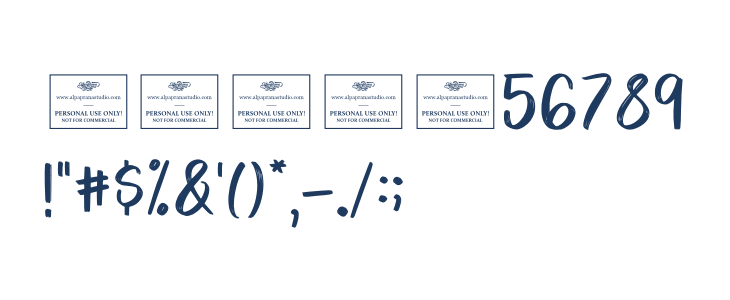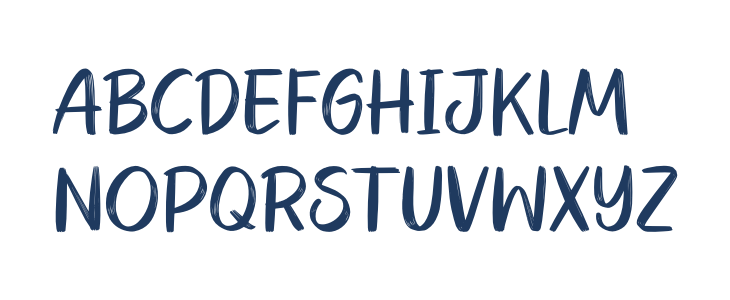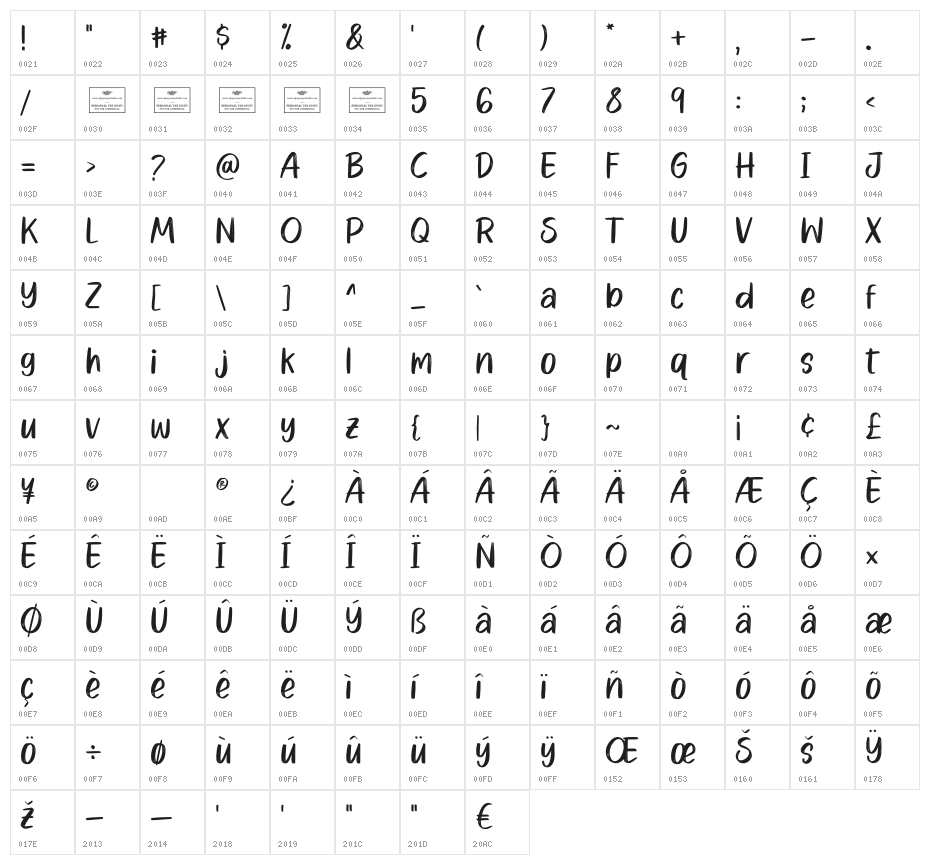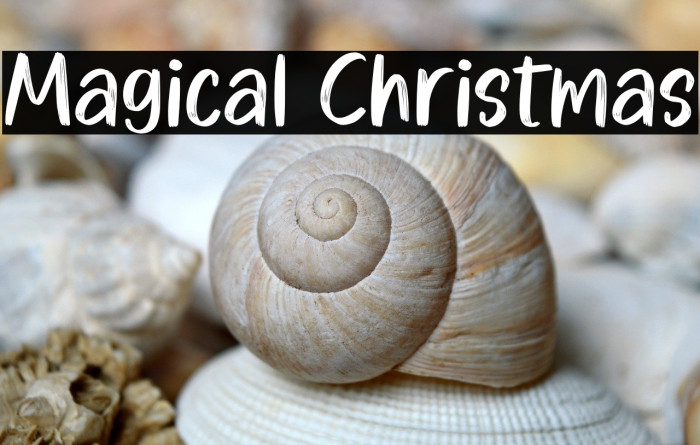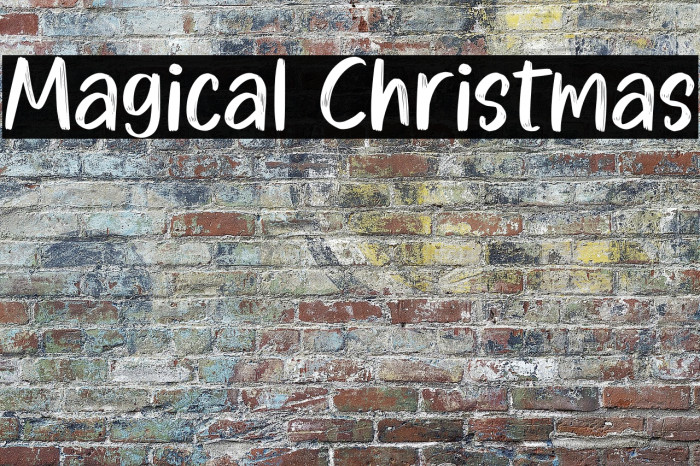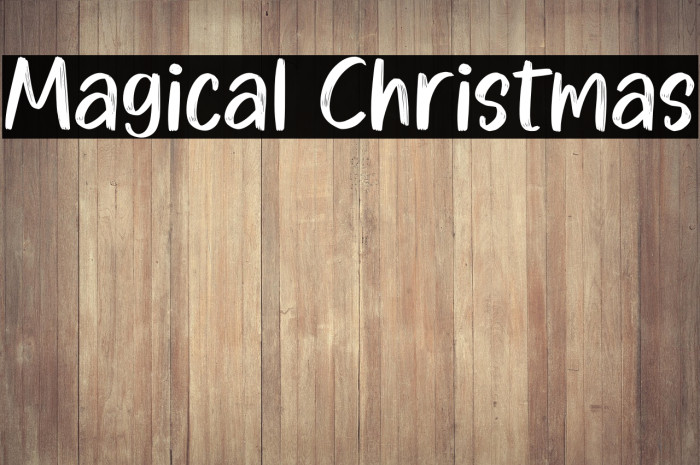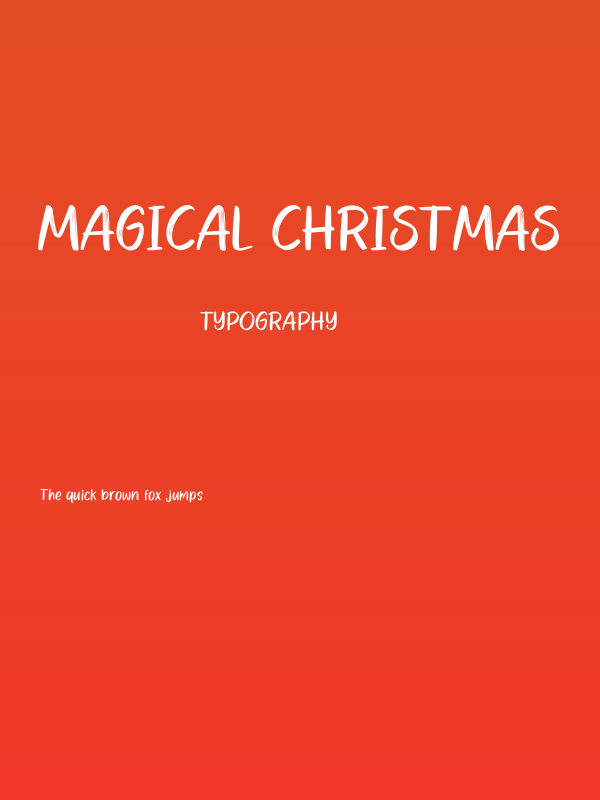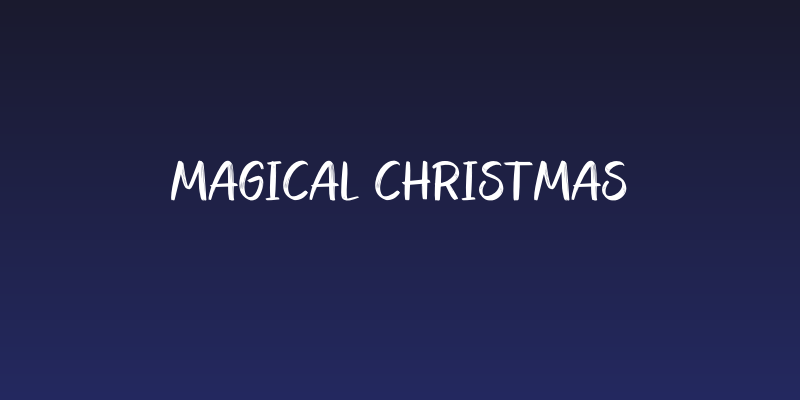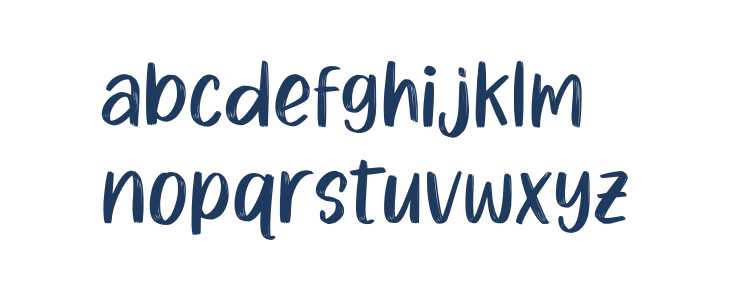
Magical Christmas Font
Magical Christmas Description
A playful, brush-script style font with energetic, hand-drawn strokes and a casual, informal appearance. The characters have varying stroke thickness, rounded terminals, and a natural, slightly irregular baseline, evoking a handwritten feel.
| Overall Style | Decorative, Playful, Handwritten |
| Use Case | Headlines, Logos, Greeting cards, Posters |
| Proposed Projects | Greeting cards, holiday invitations, playful branding, posters, social media graphics. |